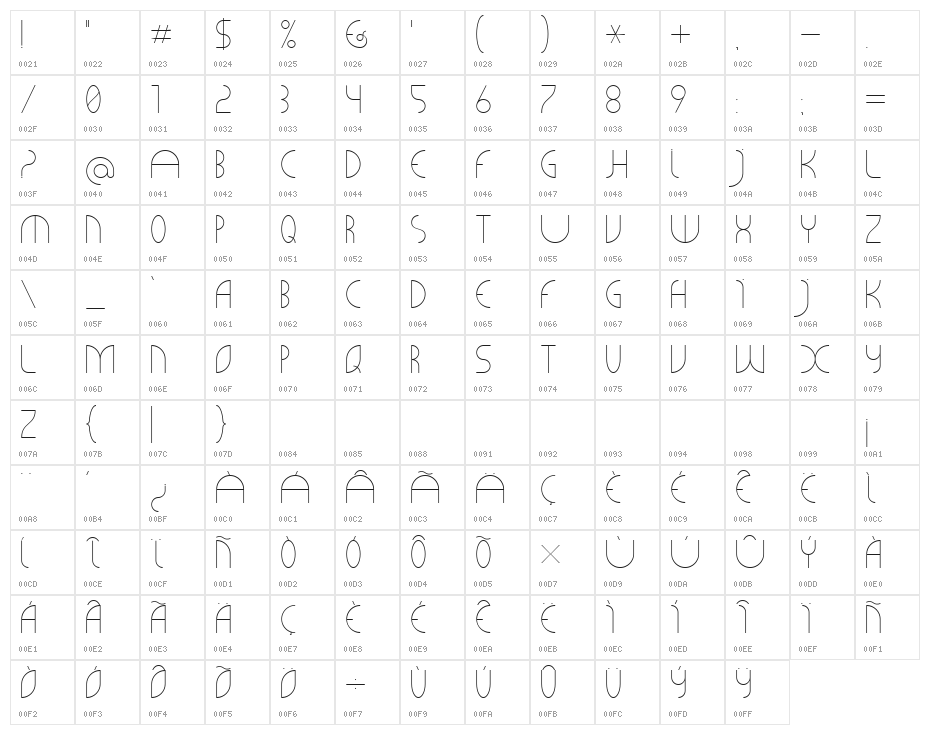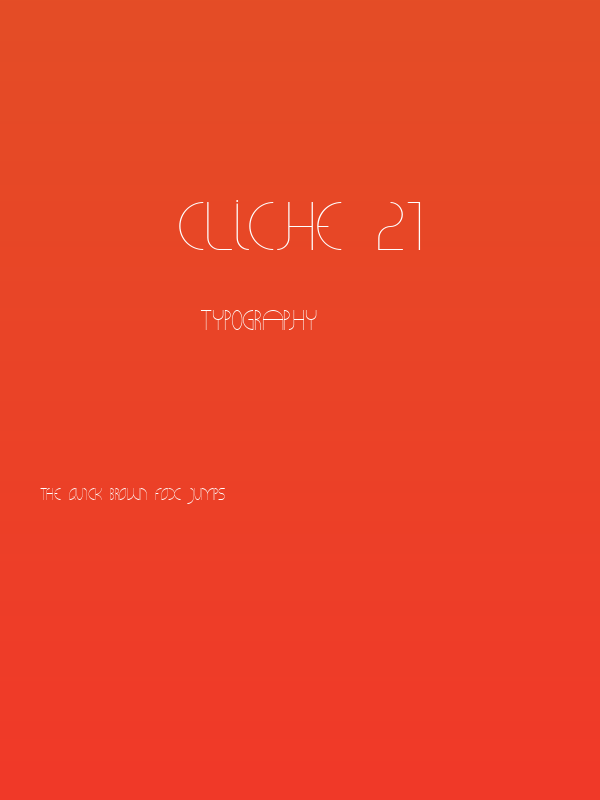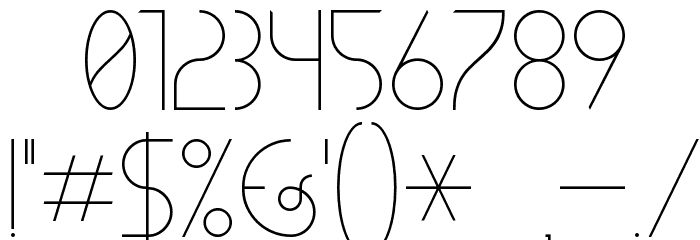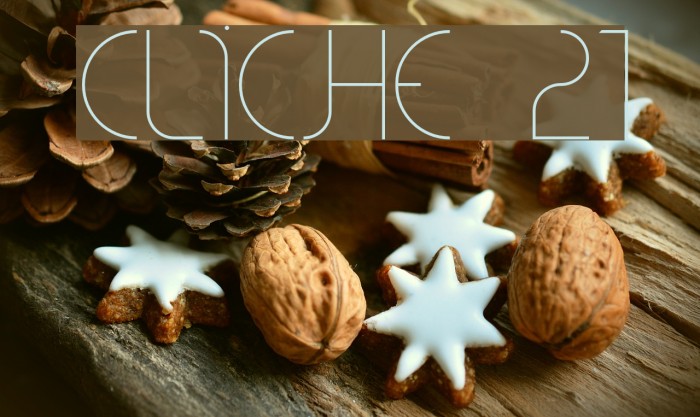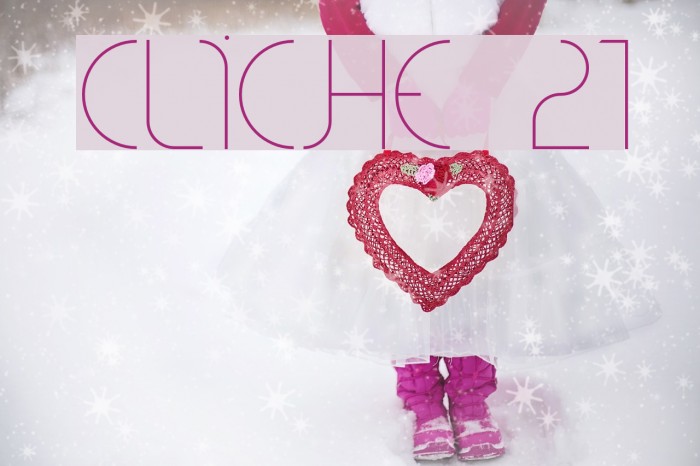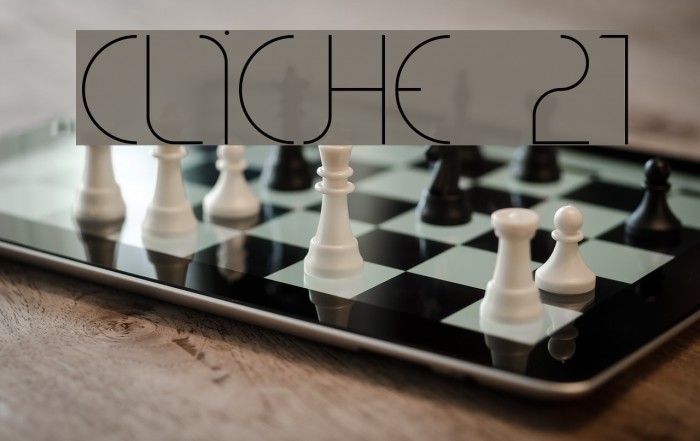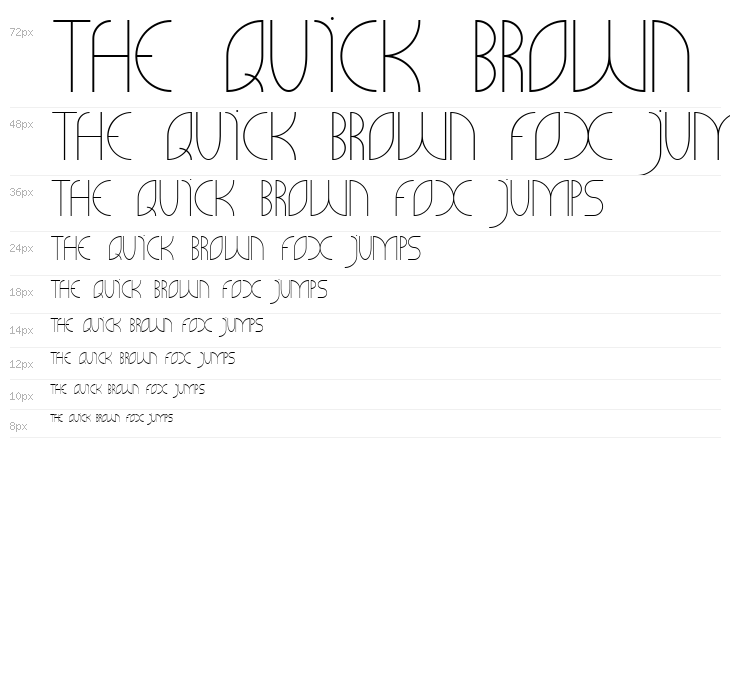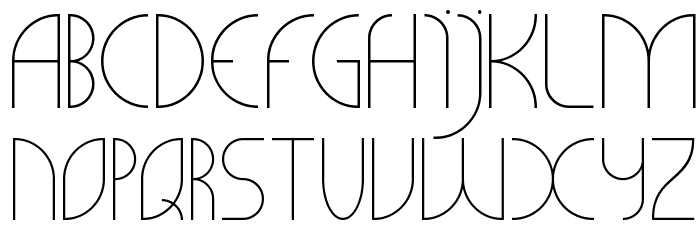
CLiCHE 21 Font
CLiCHE 21 Description
This font features a sleek, modern design with a geometric and minimalist aesthetic. The characters are composed of thin, uniform lines that create a sense of elegance and sophistication. The uppercase letters are tall and narrow, with a distinctive style that emphasizes verticality. The lowercase letters maintain the same thin line structure, offering a cohesive look across the alphabet. Numbers and special characters are designed with the same attention to detail, ensuring consistency throughout. The overall appearance is clean and uncluttered, making it suitable for contemporary design projects.